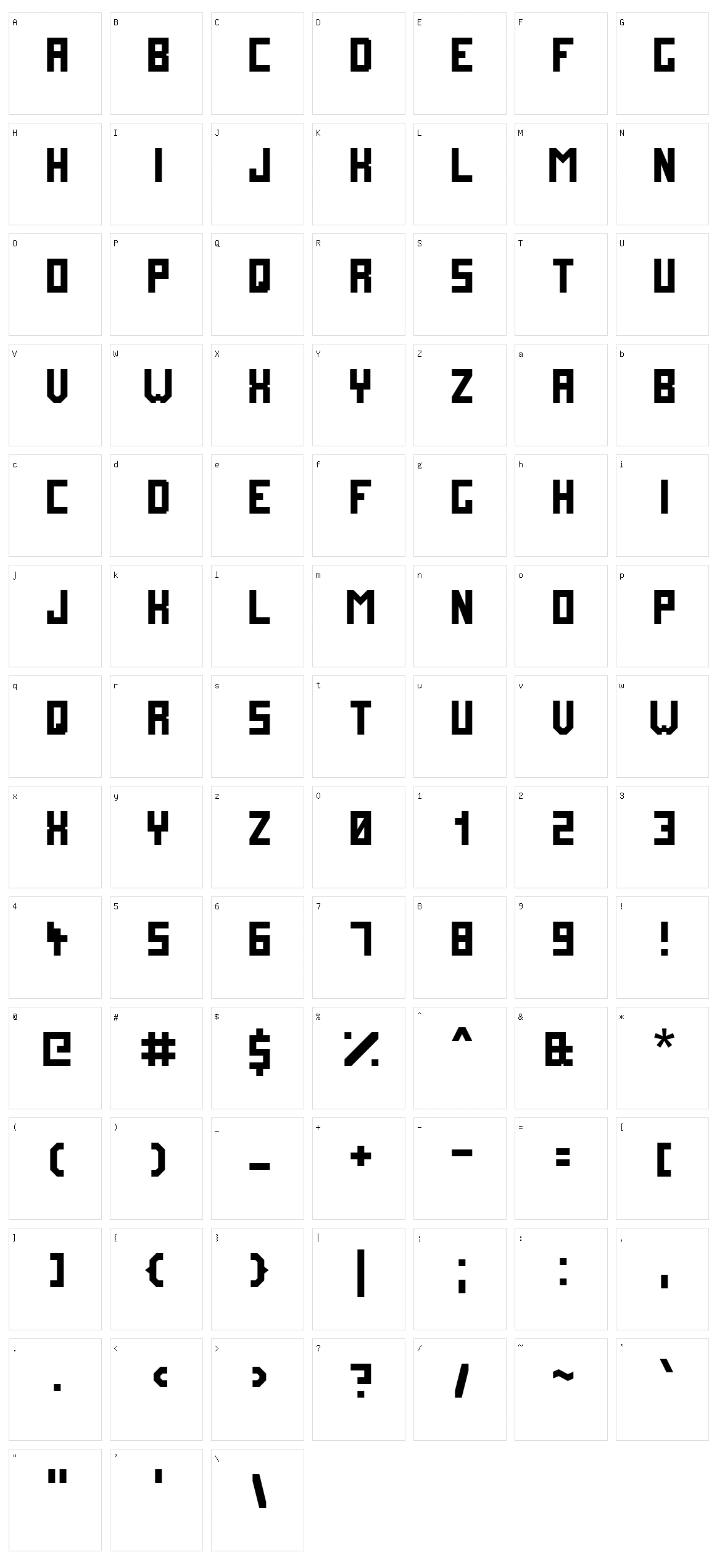
The free font Future Millennium is carefully designed by Zdeněk Gromnica a.k.a. FutureMillennium, showcasing a thoughtful balance of creativity and usability and falls under the Square font style. When you download the ZIP file, it contains only 39.97 KB of font files, making it lightweight and quick to download. Please review the license details below to understand permitted usage and distribution rights. If license information is not available, we recommend using this font for personal projects only or contacting the author directly for commercial usage permissions.